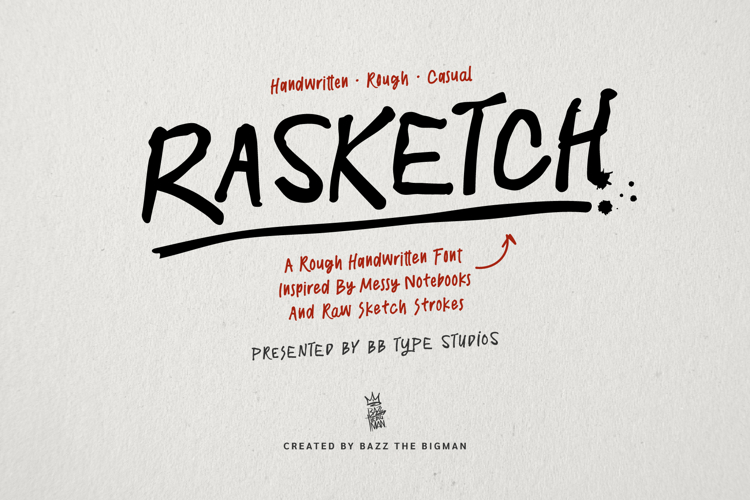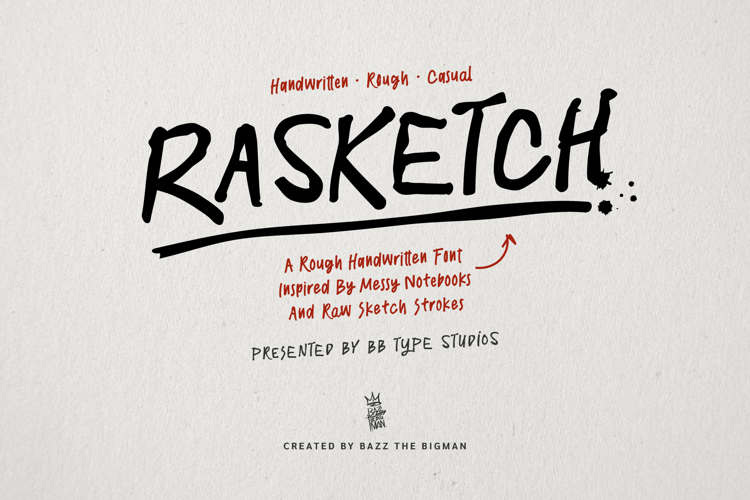
RASKETCH is a rough handwritten typeface designed to capture the beauty of imperfection. Inspired by messy notebooks, quick sketches, and spontaneous handwriting, this font delivers a natural, expressive, and casual feel. With both Regular and Script styles, plus alternates, ligatures, and multilingual support, RASKETCH gives designers flexibility while keeping a strong hand-drawn personality. This font is perfect for projects that need a human touch — from branding and packaging to posters, social media, journals, café menus, and lifestyle designs.
-Uppercase & Lowercase
-Numbers & Punctuation
-Alternates & Ligatures
-Multilingual Support
Perfect For
-Branding & Logos
-Posters & Flyers
-Quotes & Typography
-Social Media Graphics
-Packaging & Merchandise
-Café, Food & Lifestyle Design